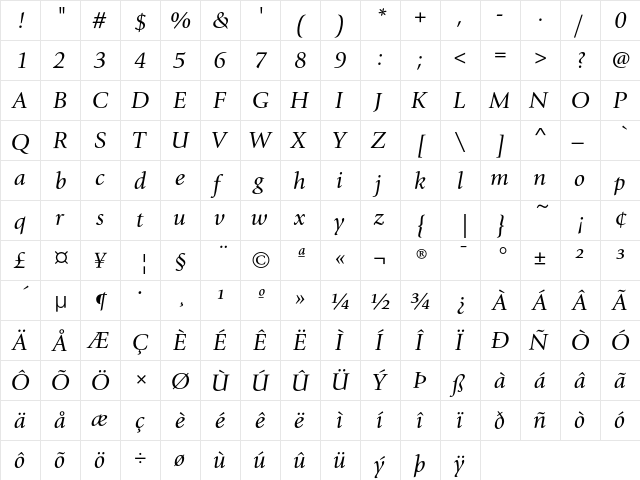
GiovanniEF BookItalic
Design Context for GiovanniEF Typeface
GiovanniEF is a composed and adaptable typeface that performs quietly and consistently across a wide range of design contexts. The dynamic lean of this cut emphasises speed and emphasis in any layout.
Pro Tip: Try GiovanniEF for annotation and caption copy alongside an upright companion — the contrast in angle creates a dynamic but ordered typographic system.